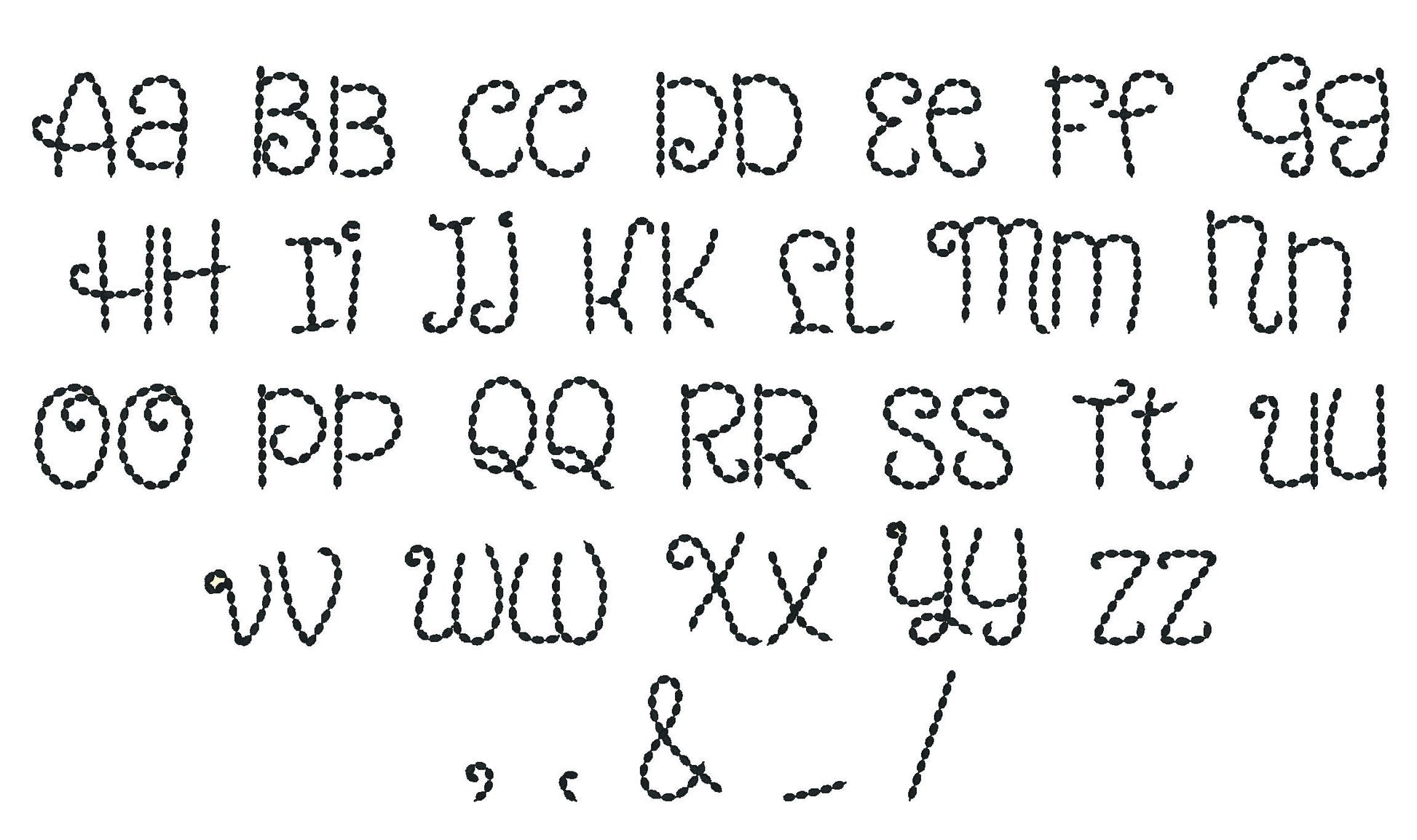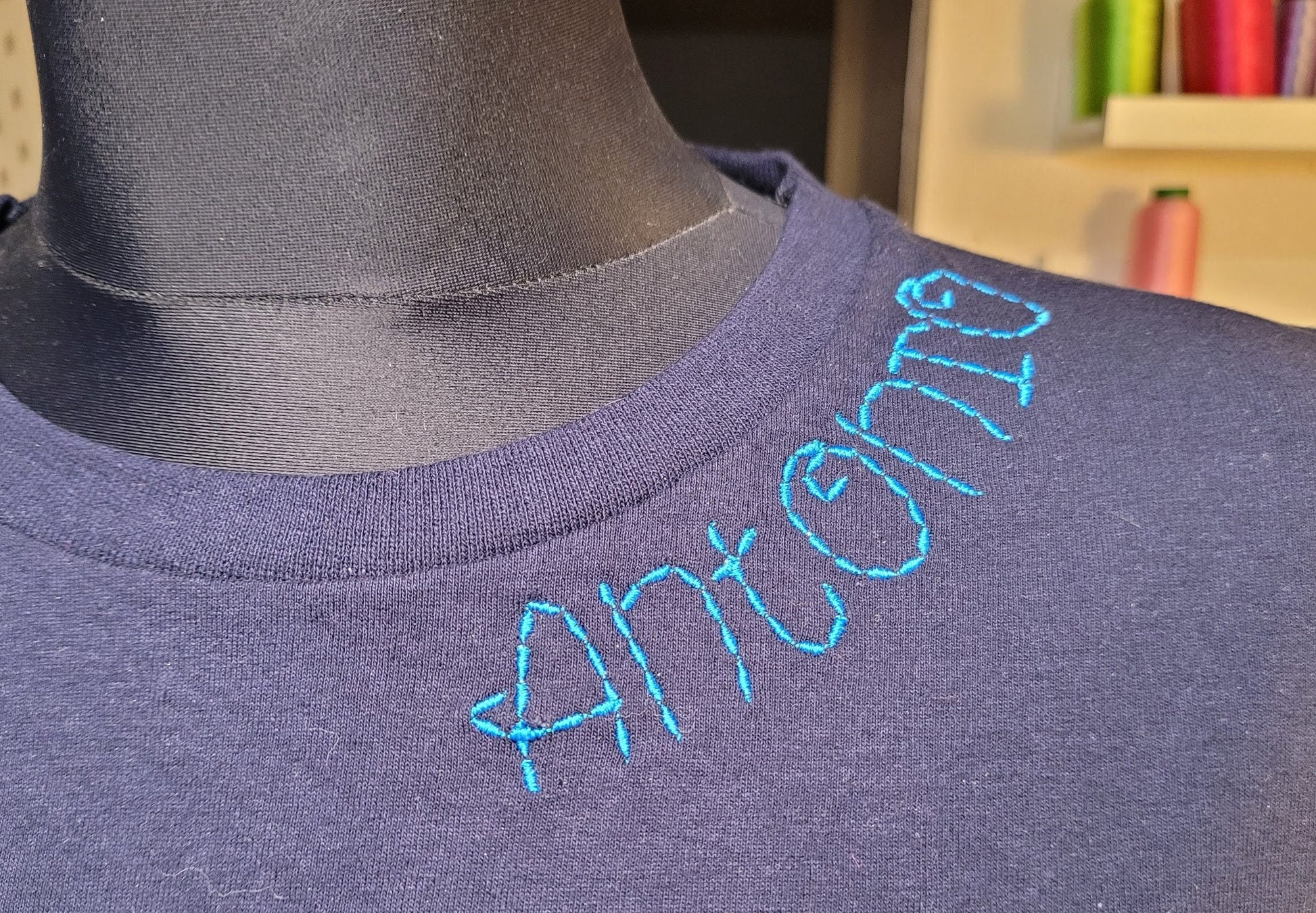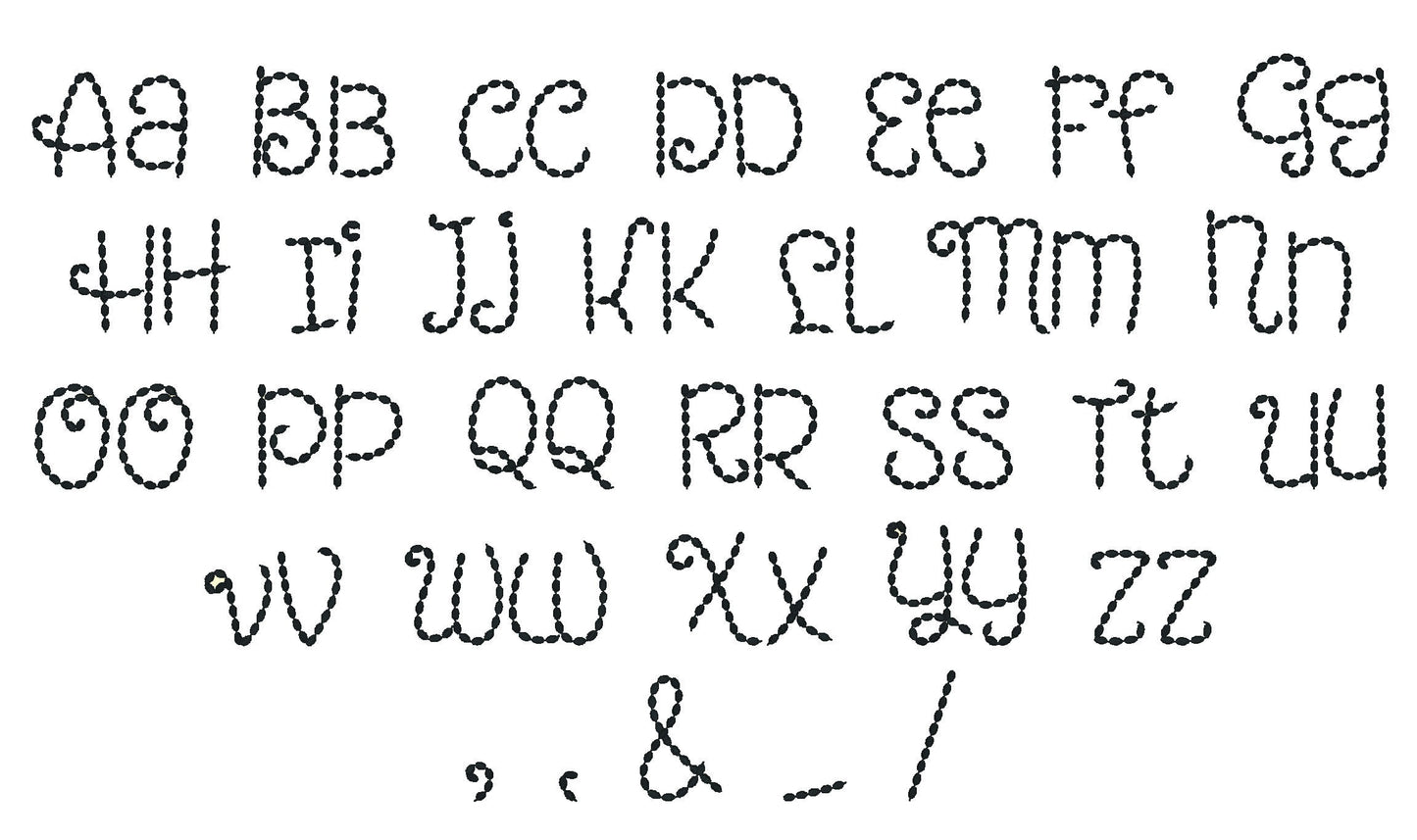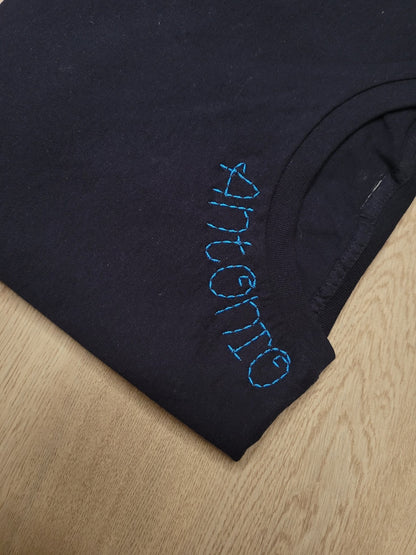
Or click to open the linkA hand stitch effect font in seed bean stitch, playful for kids' names along necklines, on shirts and pillows.
Uppercase and lowercase letters and a few signs in six sizes: 1, 1.4, 1.6, 1.9, 2.2 and 2.75 inches.